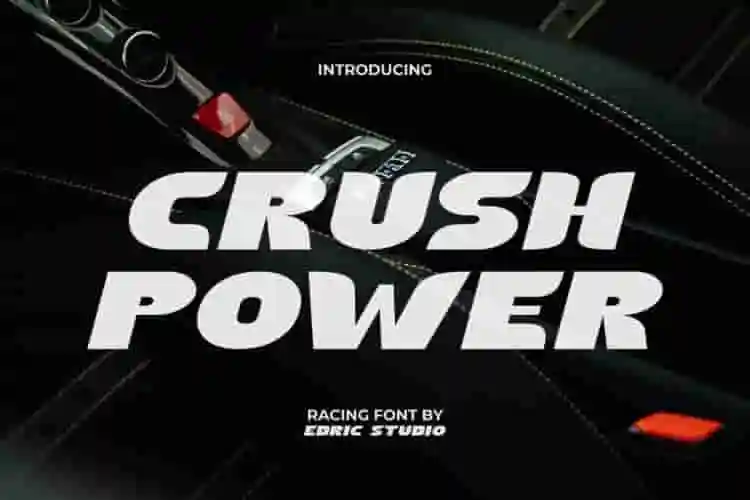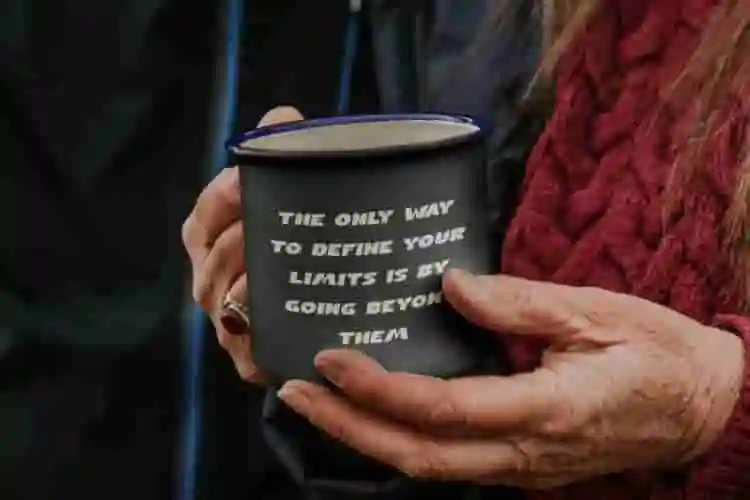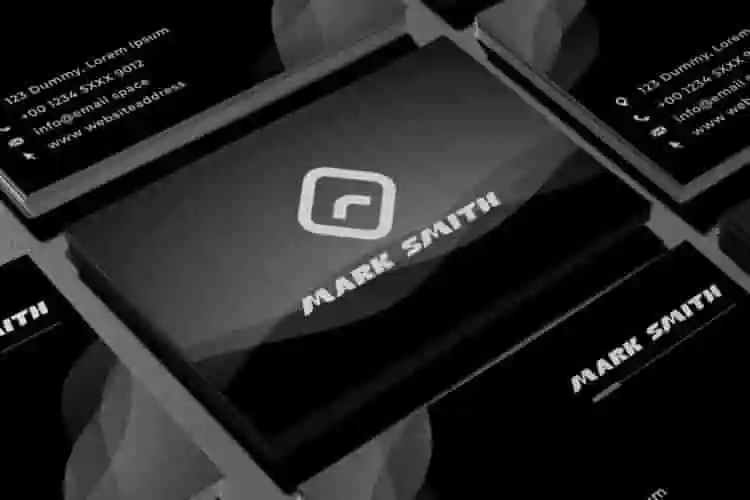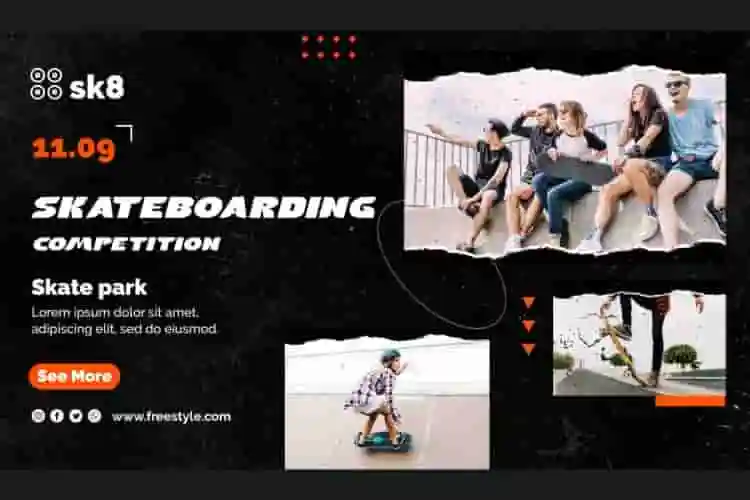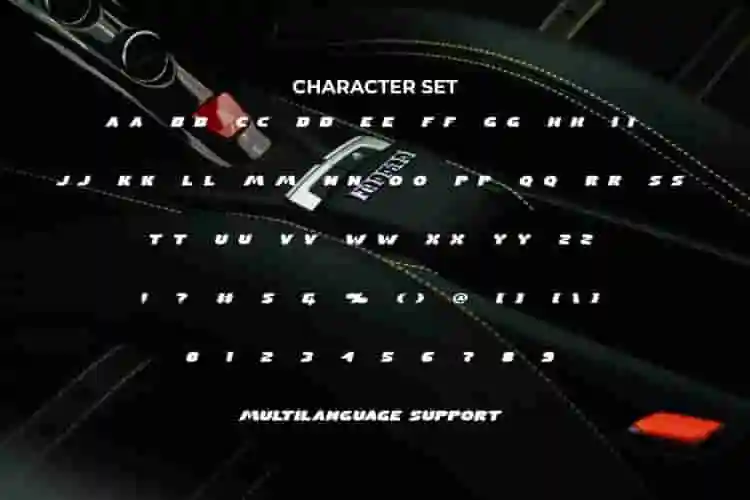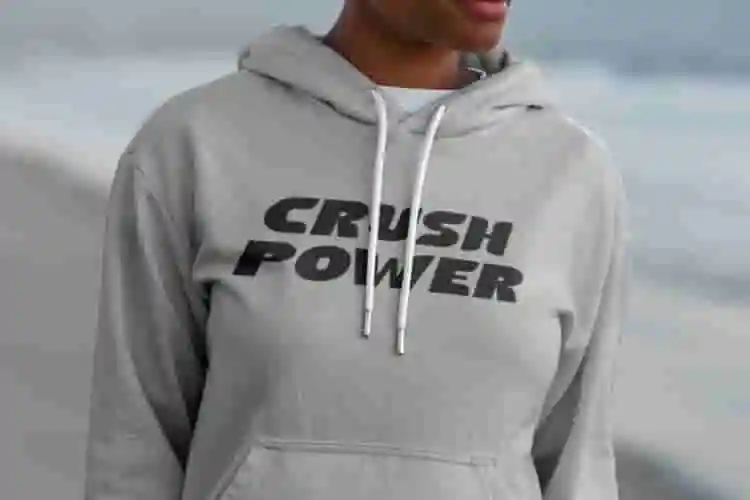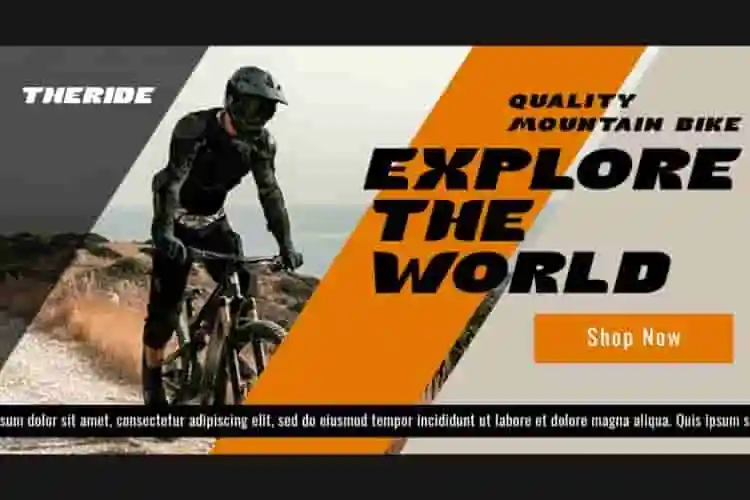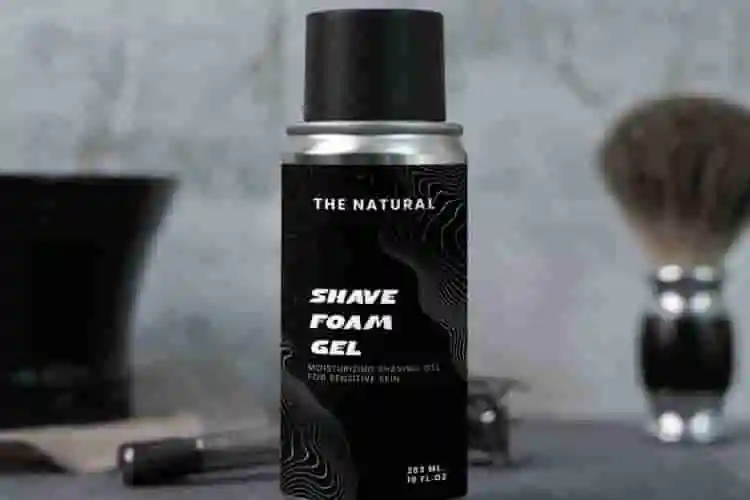
Crush Power Comic Font is a playful bold font in a racing sports theme that features uppercase letters with a strong and firm impression. This font will give more personality to your bold titles. Perfect for eye-catching as a text, blogs, brochure, business card, headers, headlines, labels, logos, poster, print materials, websites and more!!
Crush Power Comic Display Font Crush Power Font embodies the energy of racing tracks and the confidence of modern design. It comes with a complete set of ALL CAPS letters, numbers, punctuation, and symbols, making it versatile for a wide range of industries—from clothing brands, bicycles, vehicles, and sports events to corporate business, virtual reality, and graphic design projects.
Crush Power Font a playful typeface with unique decoration in each character Combine different characters for a bespoke, handcrafted feel. It’s tested to work well in the Adobe Apps (Illustrator, Adobe InDesign, Adobe Photoshop) even work on Microsoft Word. Thanks to PUA encoding, every glyph and alternate character is accessible for custom creative control.